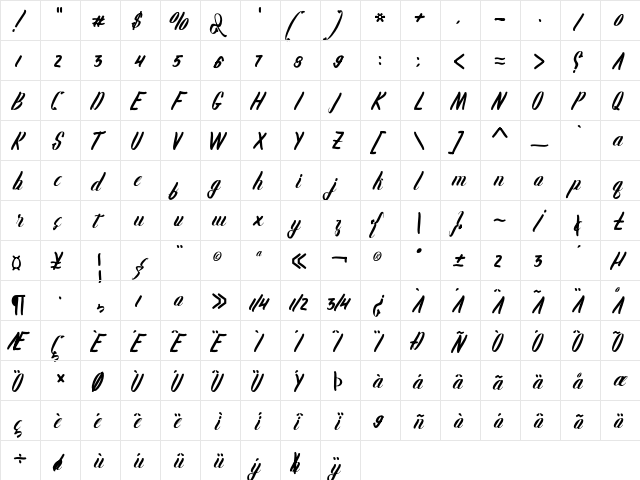
Karlote Regular
Design Context for Karlote Typeface
Karlote is a composed and adaptable typeface that performs quietly and consistently across a wide range of design contexts.